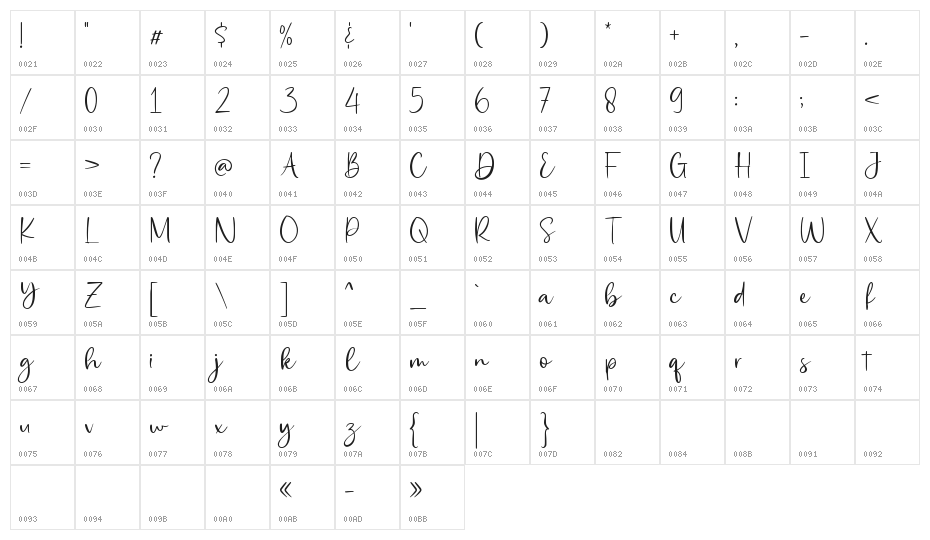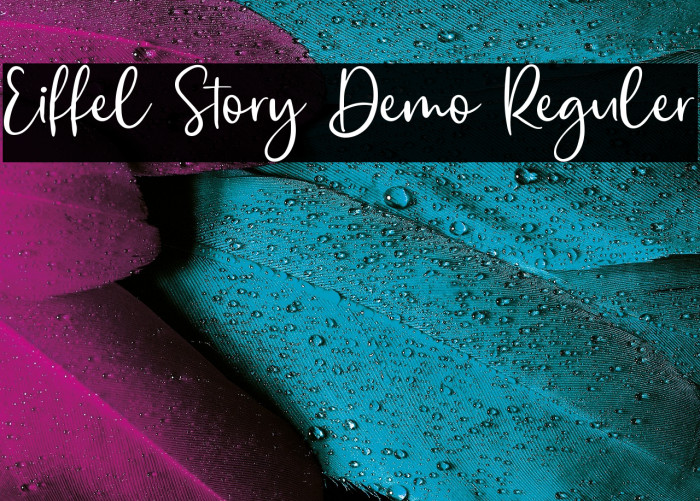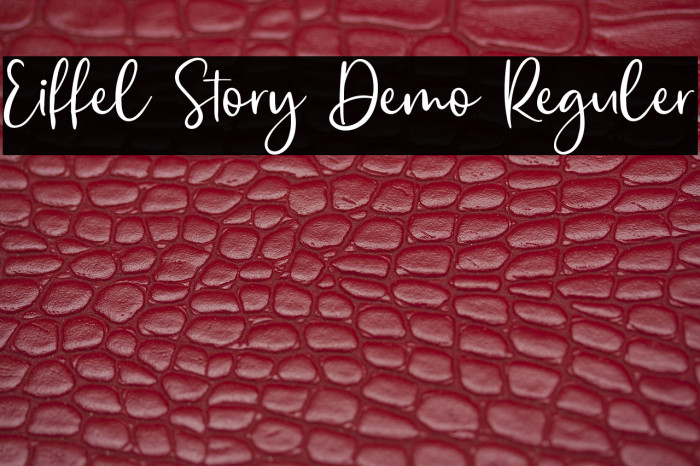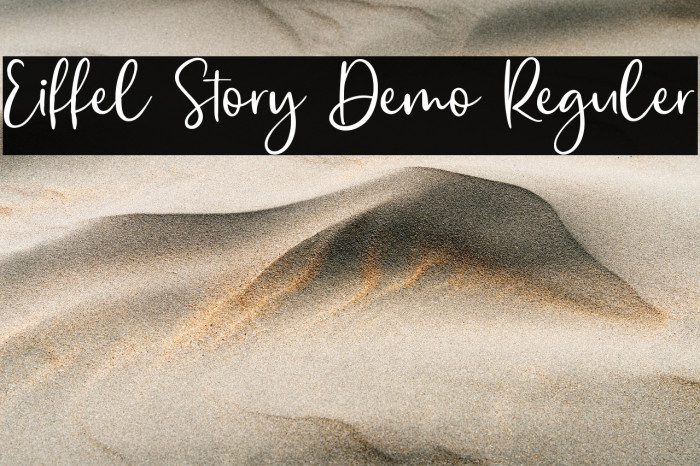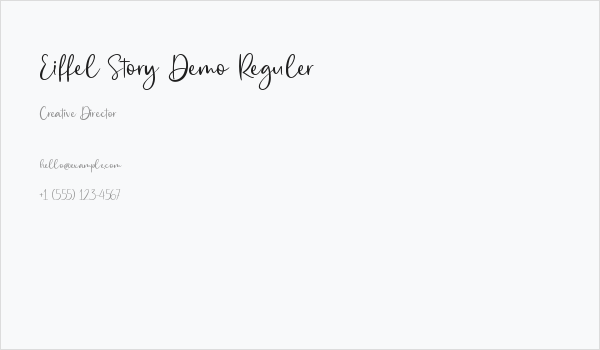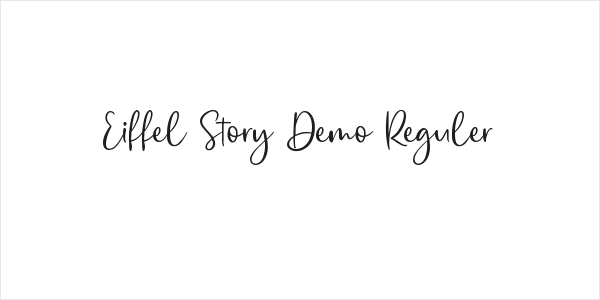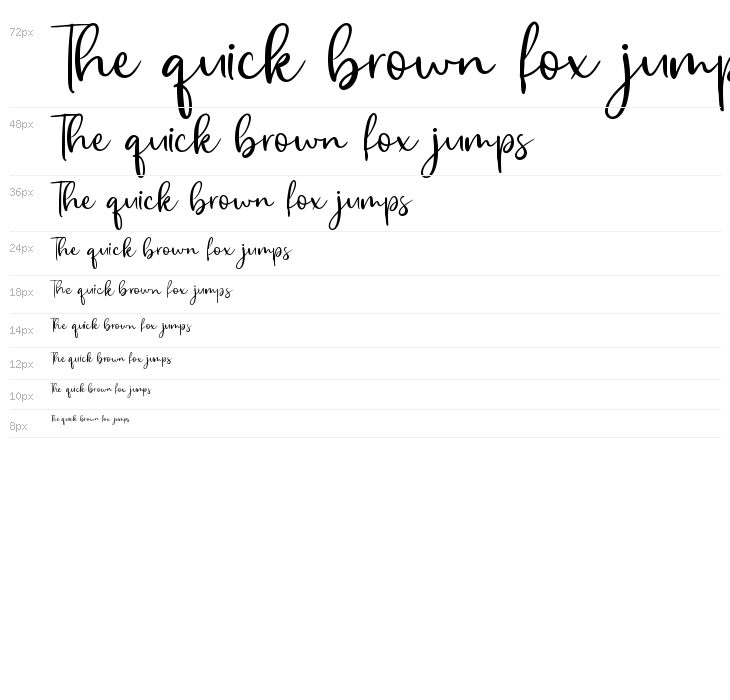
Eiffel Story Demo Reguler Font
Eiffel Story Demo Reguler Description
This font features a playful and elegant handwritten style, characterized by its flowing and connected letterforms. The uppercase letters are tall and slender, with a slight slant that adds a dynamic feel. The lowercase letters maintain a consistent flow, with some characters featuring loops and curls that enhance the handwritten aesthetic. The numerals are clear and legible, matching the overall style of the alphabet. Special characters are creatively designed, maintaining the font's unique personality. This font exudes a sense of creativity and sophistication, making it suitable for a variety of design projects.